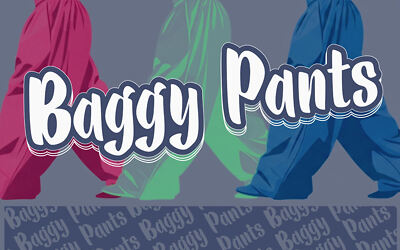
Billy Notes is a playful and cute handwritten font designed to bring charm and warmth to your notes. It features soft, rounded letterforms with a friendly and approachable style that feels personal and fun.
Billy Notes font is perfect for adding a touch of personality to journals, planners, and casual communications, this font captures the spontaneity of handwriting with a lighthearted twist. Its playful curves and balanced design ensure that every word feels joyful and easy to read, making this font an ideal choice for note-taking, to-do lists, and anything that needs a cheerful, hand-crafted touch.